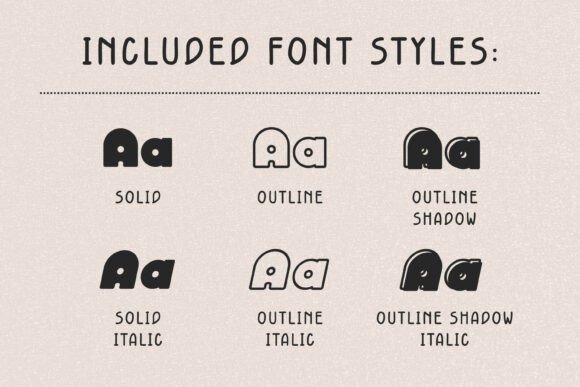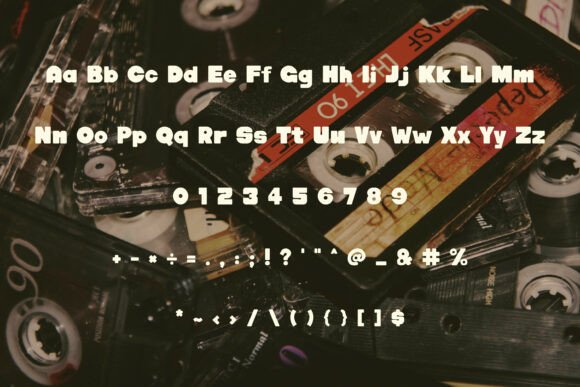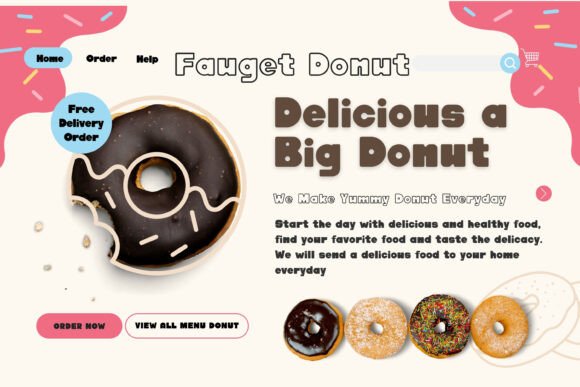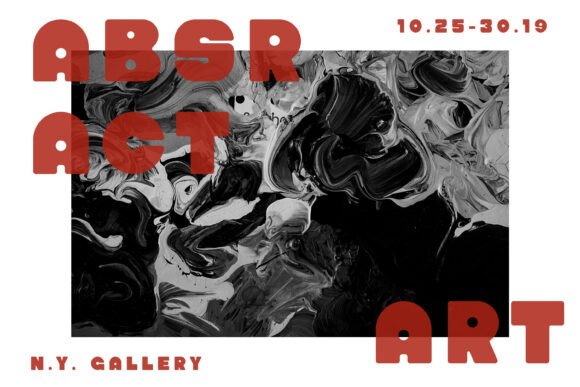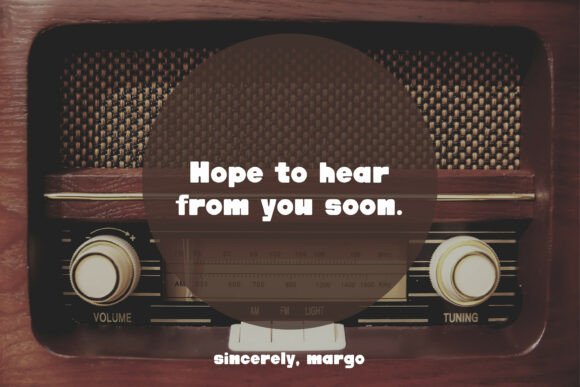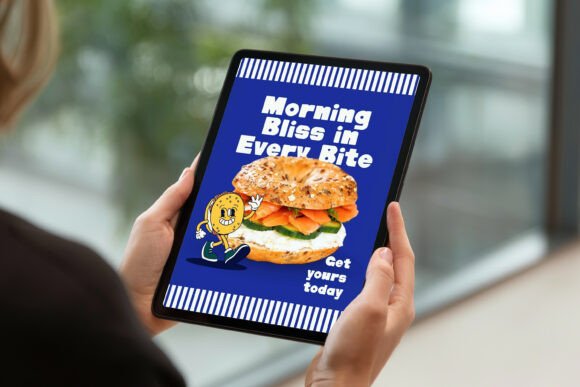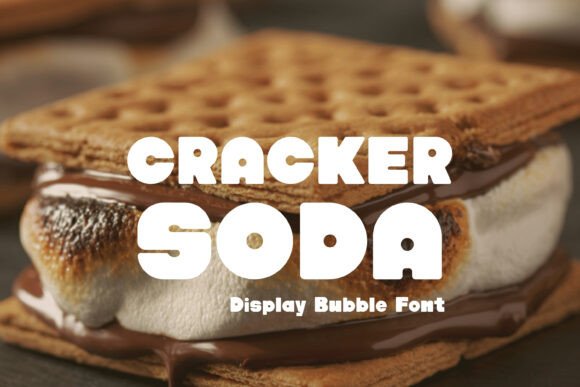
Cracker Soda Font: Bringing Bold Retro Energy to Your Designs
✨ Are you ready to add a dash of retro flair to your designs? Look no further than Cracker Soda Font, a chunky, groovy bubble typeface that’s sure to bring back the fun and playful vibes of the 1970s. Inspired by vintage style, this ultra-bold font is perfect for designers and crafters looking to add a touch of nostalgia to their work.
The Retro Revival: Cracker Soda’s Unique Charm
Cracker Soda Font is more than just a font – it’s a statement piece. With its rounded letterforms, tight kerning, and playful, heavy weight, this typeface demands attention and radiates high-spirited nostalgia. The “groovy-70s” soul of Cracker Soda is unmistakable, evoking memories of vintage snack packaging, classic video games, and retro-style posters.
Design Possibilities: Where to Use Cracker Soda Font
So, where can you use this amazing font? The possibilities are endless! Here are a few ideas to get you started:
- Vintage-inspired snack packaging: Add a touch of nostalgia to your snack packaging with Cracker Soda Font. Perfect for retro-style chip bags, candy wrappers, and more.
- Independent record store branding: Give your record store a funky, retro vibe with Cracker Soda Font. Use it for logos, posters, and social media headers.
- High-energy festival posters: Create eye-catching festival posters with Cracker Soda Font. Its bold, playful style is sure to grab attention and get people excited.
- Funny “retro-pop” social media headers: Add a dash of retro flair to your social media headers with Cracker Soda Font. Perfect for creating engaging, nostalgic content.
What Makes Cracker Soda Font So Special?
So, what sets Cracker Soda Font apart from other fonts? Here are a few key features:
- Ultra-bold and chunky: Cracker Soda Font is designed to make a statement. Its bold, chunky letterforms are perfect for grabbing attention.
- Rounded letterforms: The rounded edges of Cracker Soda Font give it a playful, approachable feel.
- Tight kerning: The tight kerning of Cracker Soda Font ensures that your text looks cohesive and visually appealing.
- Playful, heavy weight: Cracker Soda Font has a playful, heavy weight that’s perfect for creating eye-catching designs.
Tips for Using Cracker Soda Font
Here are a few tips for getting the most out of Cracker Soda Font:
- Use it sparingly: Cracker Soda Font is bold and attention-grabbing, so use it sparingly to avoid overwhelming your design.
- Pair it with complementary fonts: Pair Cracker Soda Font with complementary fonts to create visual interest and add depth to your design.
- Experiment with colors: Cracker Soda Font looks great in bold, bright colors. Experiment with different colors to find the perfect combination for your design.
Cracker Soda Font is a unique and versatile typeface that’s perfect for designers and crafters looking to add a touch of retro flair to their work. With its bold, chunky letterforms, tight kerning, and playful, heavy weight, this font is sure to bring back the fun and playful vibes of the 1970s. Whether you’re creating vintage-inspired snack packaging, independent record store branding, or high-energy festival posters, Cracker Soda Font is the perfect choice.